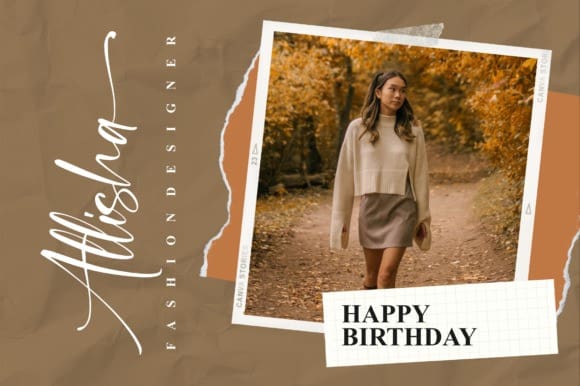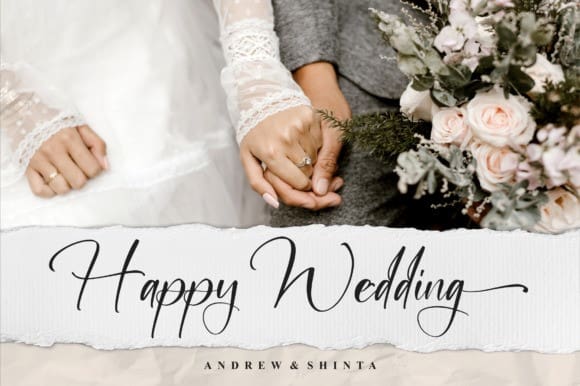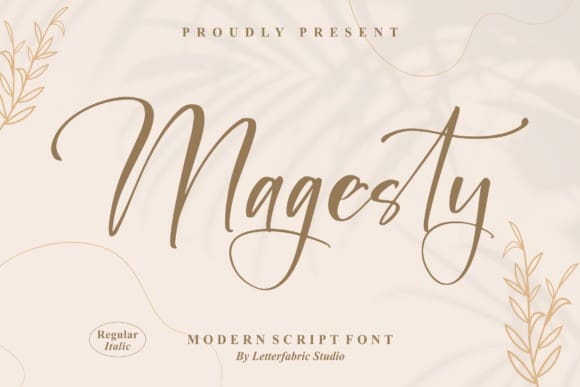
Magesty Script Font
Magesty Script Font – Modern Script Font suitable for any projects such as logos, branding projects, homeware designs, product packaging, mugs, quotes, posters, shopping bags, t-shirts, book covers, name cards, invitation cards, greeting cards, label, photography, watermark, special events, and all your other lovely projects that need a beautiful script taste.